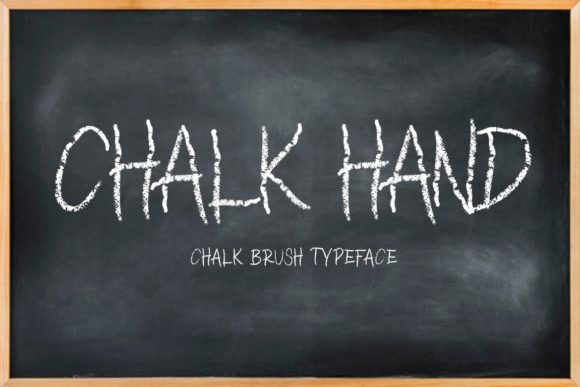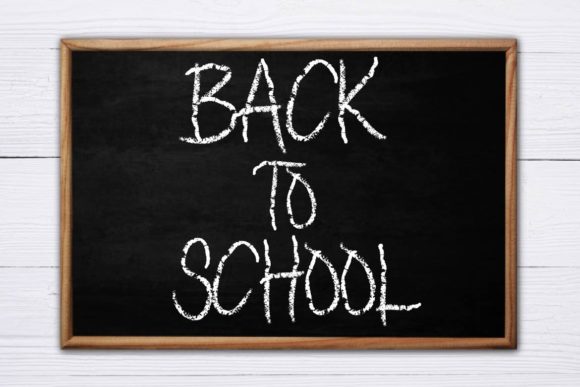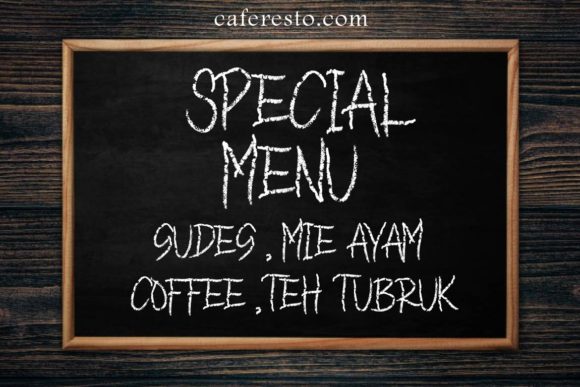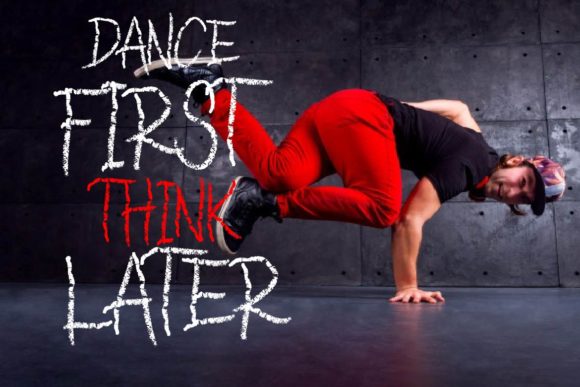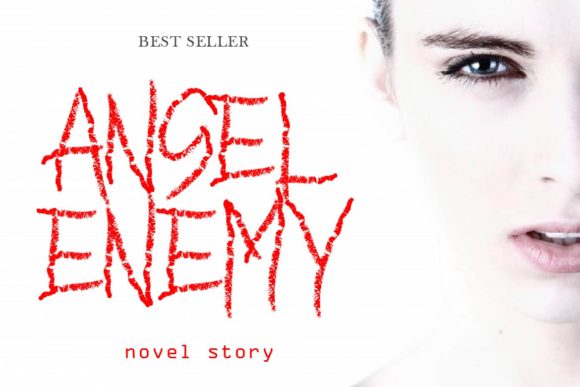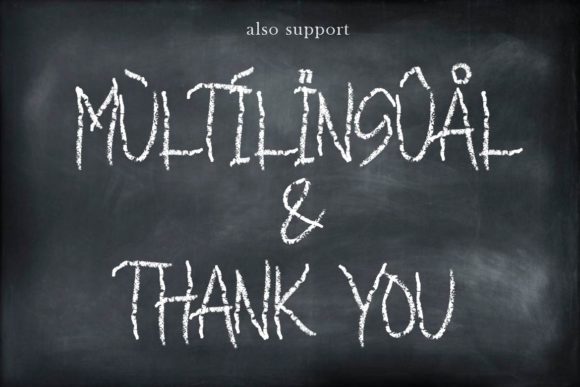
HomeSans Serif FontsChalk Hand Font Sans Serif Fonts Chalk Hand Font FacebookTwitterPinterestWhatsApp Chalk Hand Fonts 1 of 6 About Chalk Hand Font Chalk Hand is a rough and edgy display font that is inspired by chalk writing. Get inspired by its unique charm! DOWNLOAD NOW People also explored Flamez Font Cleopetto Font Spooky Font Meega Juctice Font Aura Bella Font La Saffina Font Hunsleitta Font Miletray Font Renata Font 143 0 TagsChalk Hand Font Previous articleRegals FontNext articleGoliatte Font LEAVE A REPLY Cancel reply Comment: Please enter your comment! Name:* Please enter your name here Email:* You have entered an incorrect email address! Please enter your email address here Website: Save my name, email, and website in this browser for the next time I comment. Personal Use Free Shnobel Personal Use Free Read more about this font Aliqa Personal Use Free Read more about this font 5cent Free Graffiti Personal Use Free Read more about this font Screengem Personal Use Free Read more about this font BLOG Top 7 Google Fonts Alternatives for Faster and Privacy-Friendly Web Design (2025) Top 7 Google Fonts Alternatives for Faster and Privacy-Friendly Web Design (2025) When it comes to web typography, Google Fonts has long been the go-to... Best Fonts for YouTube Videos: Make Your Thumbnails Stand Out The 10 Best Handwriting Fonts to Add Personality to Your Designs Where to Buy American Fonts Online in 2024